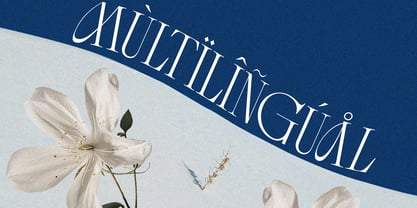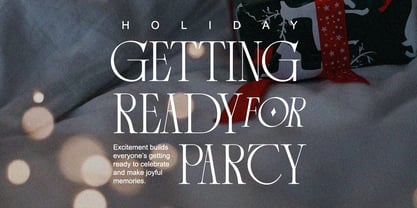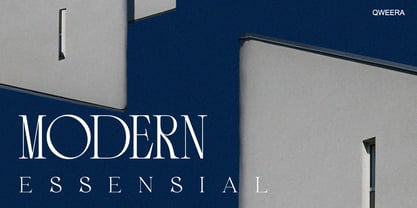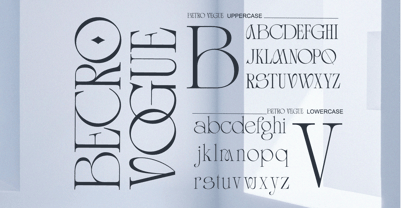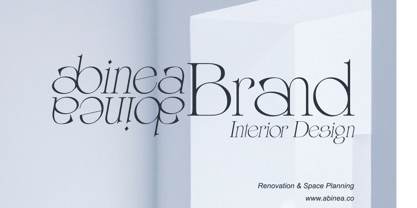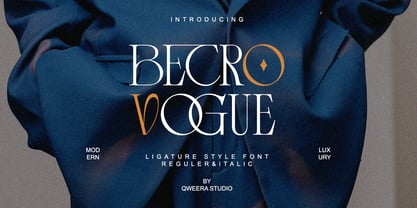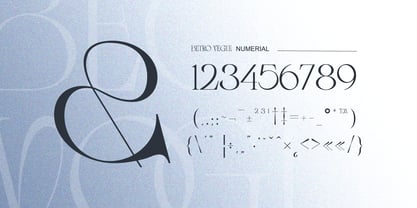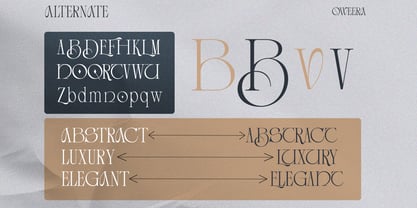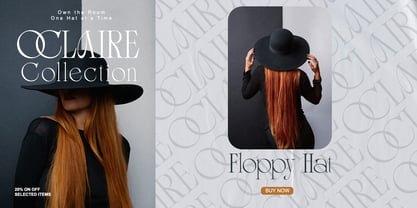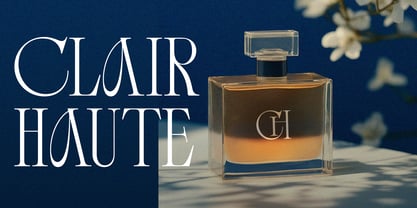
Betro Vogue
by Qweera Studio
The Betro Vogue Font Family was designed by Idhham Cholid Rikzano Yahya and published by Qweera Studio. Betro Vogue contains 2 styles and family package options. More about this family
Betro Vogue - Modern Elegant Luxury Serif Font for Premium Branding Betro Vogue is a breathtaking contemporary serif that redefines luxury typography with its sophisticated design. Featuring both Regular and Italic styles with exquisite alternates and ligatures, this font is expertly crafted for elite branding, high-end logos, luxury packaging, and editorial designs that demand prestige and visual impact. Where Modern Elegance Meets Timeless Sophistication With its razor-sharp serifs and graceful italic variant, Betro Vogue delivers unparalleled versatility for luxury brands. The meticulously designed alternates and ligatures enable flawless typographic compositions that exude exclusivity and refinement. Premium Features Include: Luxury Serif Design – Exquisite letterforms with couture details Dual Style Versions – Regular & italic for dynamic applications Stylish Alternates – 25+ premium character variations Sophisticated Ligatures – Seamless letter connections Universal Compatibility – From perfume packaging to luxury billboards Extended Latin Support – Comprehensive character set Elevate Your Brand with Betro Vogue's Signature Elegance Ideal for: Haute couture brandin Luxury jewelry packaging Premium cosmetic lines High-end magazine layouts Exclusive event collateral Available Now – Experience Betro Vogue's Unrivaled Luxury!
Designers: Idhham Cholid Rikzano Yahya
Foundry: Qweera Studio
Betro Vogue